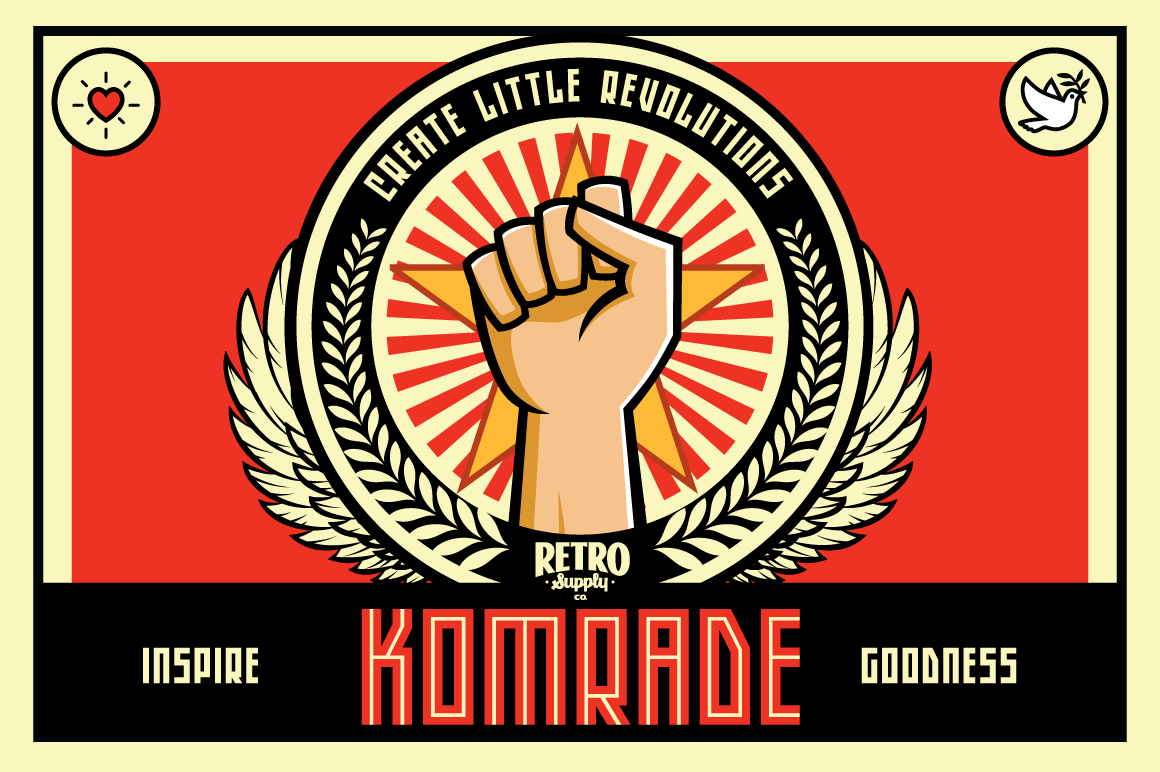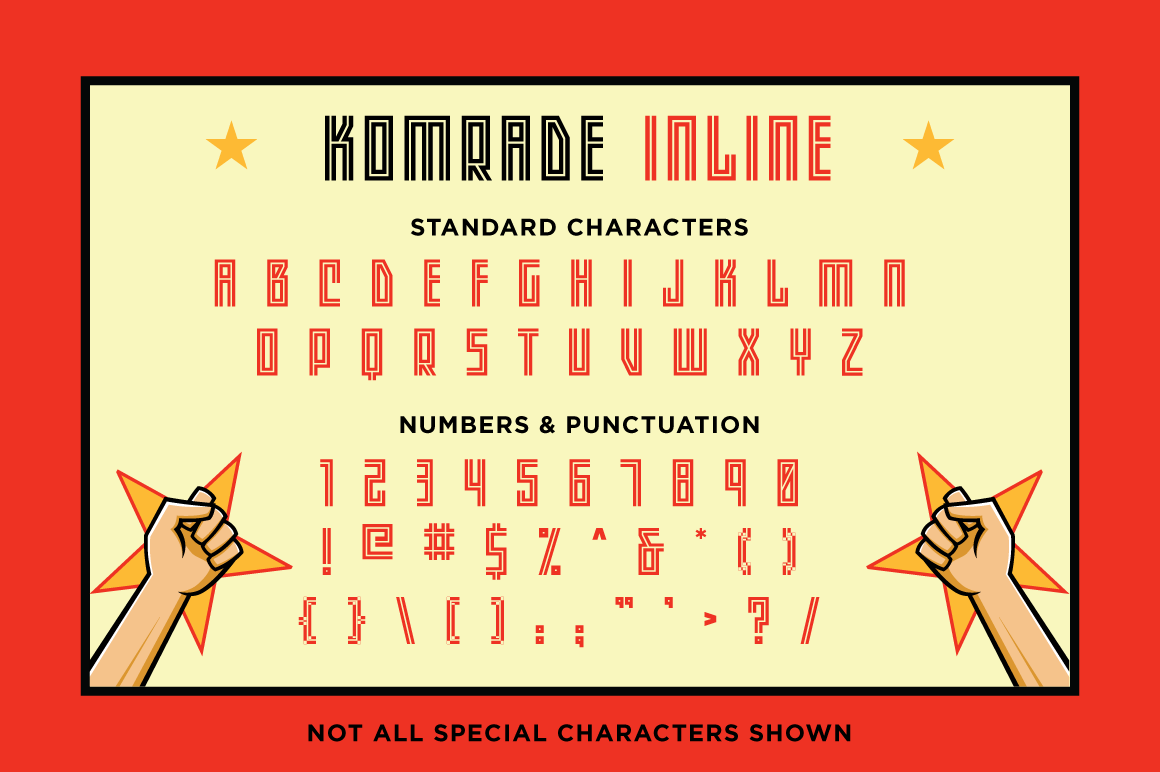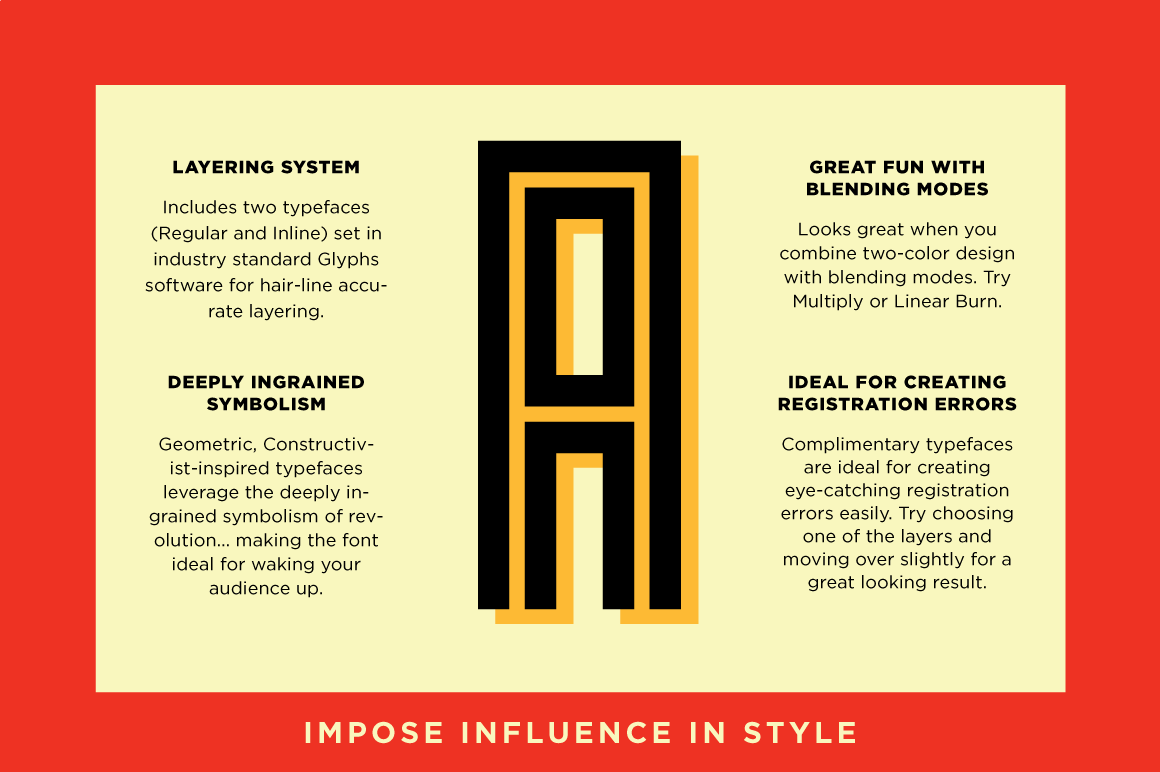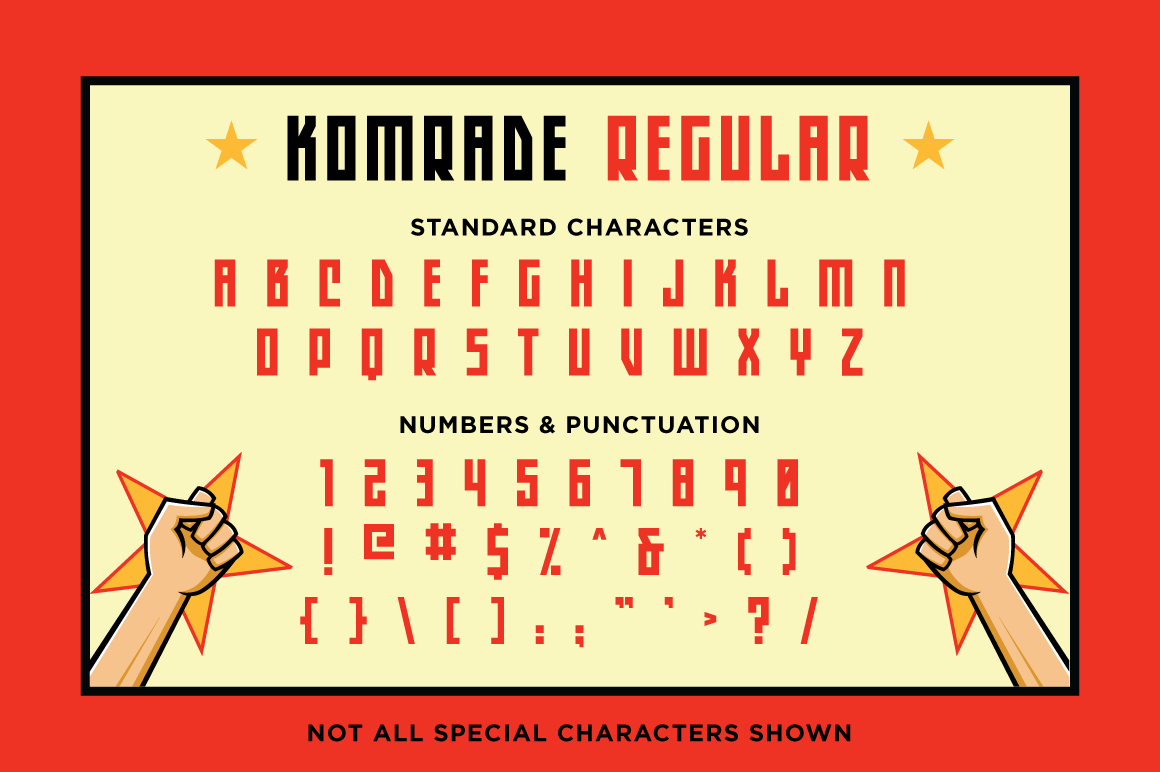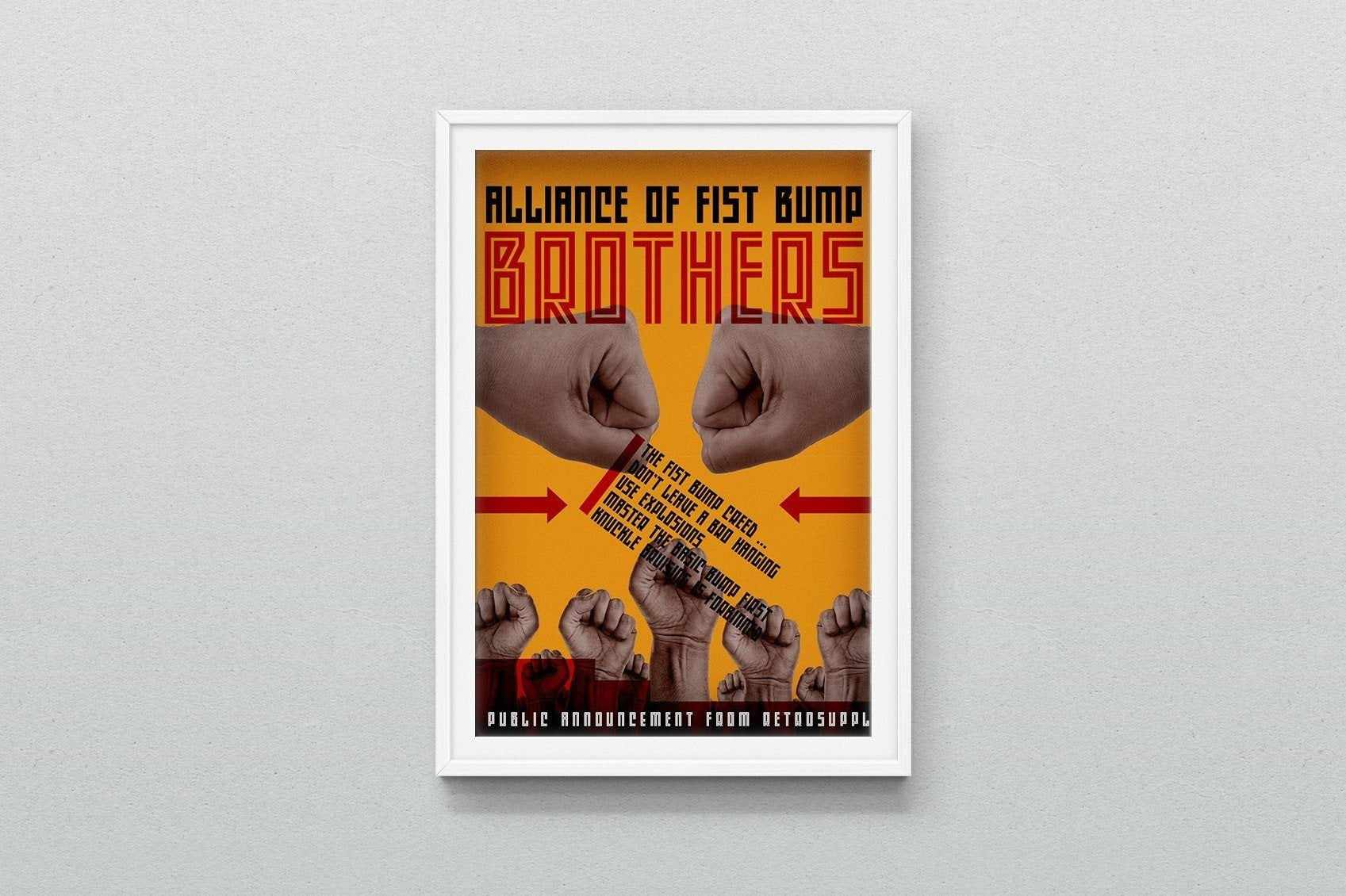
Komrade Font
Create Your Own Tiny Revolution of Awesomeness with Komrade!
Whether you're trying to raise money for your daughter's Girl Scout troop or you're trying to raise awareness about cancer... Design has the power to inspire the best in people.
Komrade is a constructivist-inspired font that's perfect for starting your own little revolution.
• A constructivist-inspired font that's perfect for starting your own little revolution
• It has bold, strong presence that grabs and hold your attention
What makes this font so powerful
What if I told you your entire life is shaped by symbols?
What if I told you that these symbols had the power to influence your emotions, energy level and how easily you can be persuaded?
It's 100% true.
For example, if I was to show you a picture of a dove holding an olive branch (and you live in the western world) it would likely evoke feelings of peace and rebirth.
Here's the real crazy part:
Even if you don't know what the exact meaning behind a dove holding an olive branch it probably evokes these feelings in you.
In the exact same way fonts like Komrade have built of symbolism of revolution and new ideas. See where I'm going here? By using a font like Komrade you're leveraging the deeply ingrained symbolism within these types of fonts.
Sometimes these kinds of fonts seem a bit niche. How will you use it in your work? The opportunities are everywhere. Use it to create your own positive revolution in the world. Big or small.
For example, here's a tutorial about how we used the Komrade font to create an Alliance of Fist Bump Brothers. It's just a bit of fun but it gives you an idea of how you can use a fun font like this.